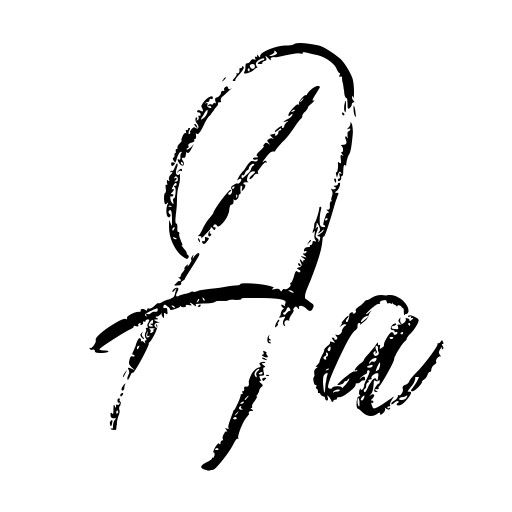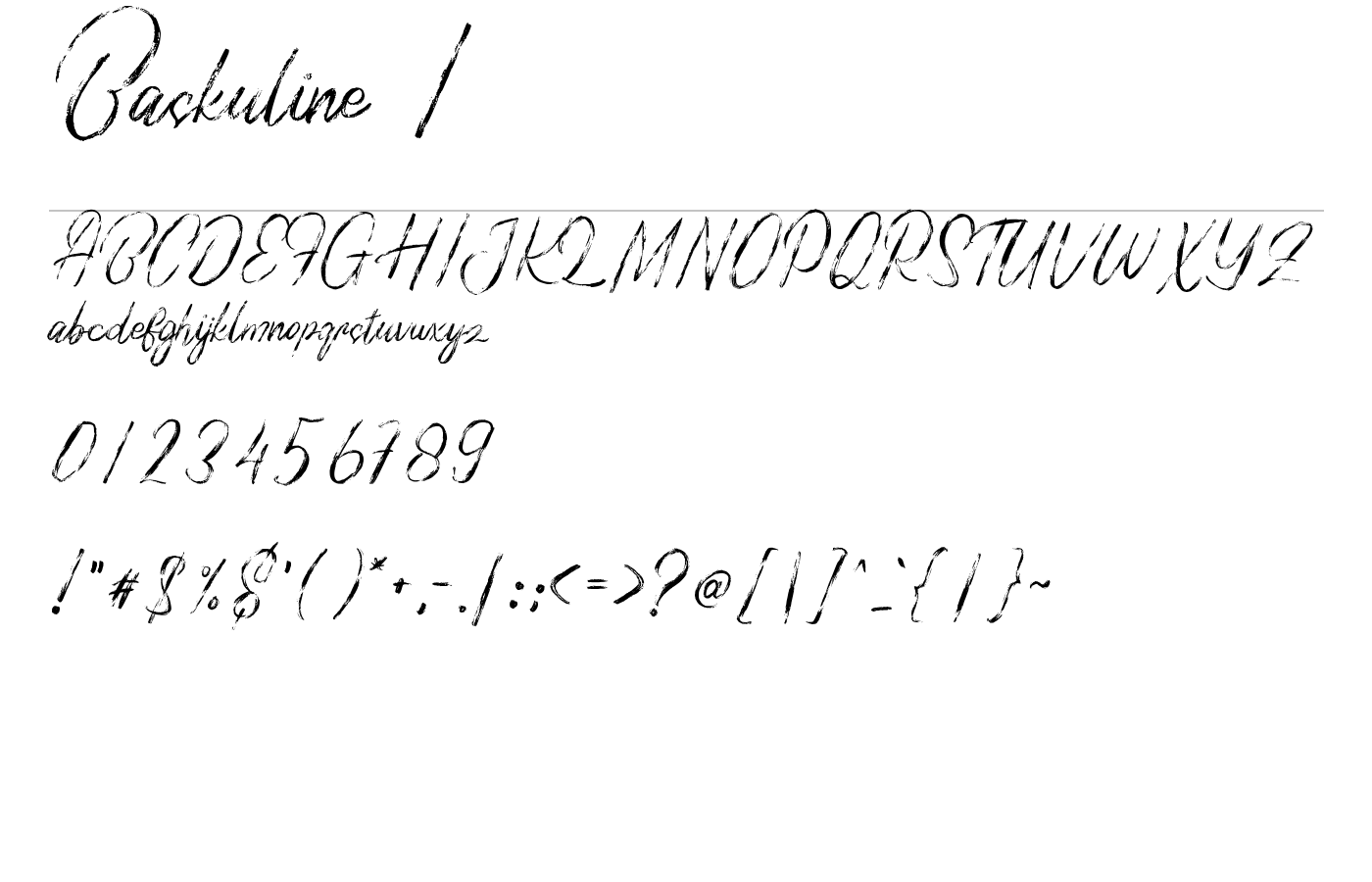
Baskuline 1 is an elegant, script-style font that mimics natural handwritten calligraphy with a delicate, slightly textured stroke. Its slender, flowing letterforms and moderate contrast give it a refined yet approachable feel, ideal for invitations, branding, or any design needing a personal, artistic touch. This font works best in large sizes where its fine details and graceful curves can truly shine.
Baskuline 1 Font